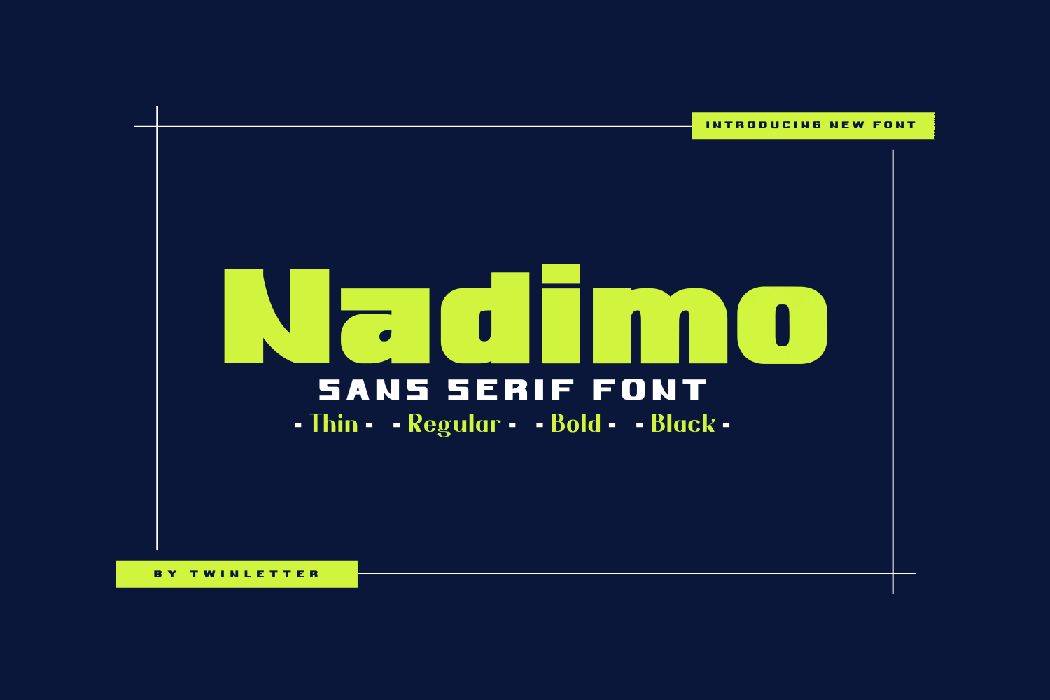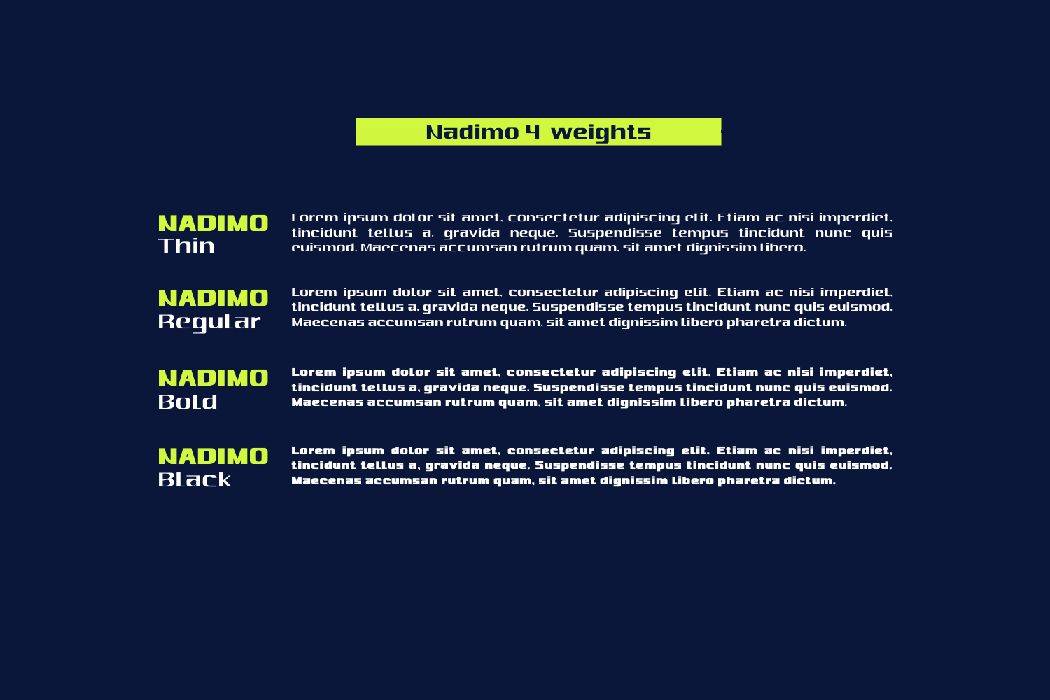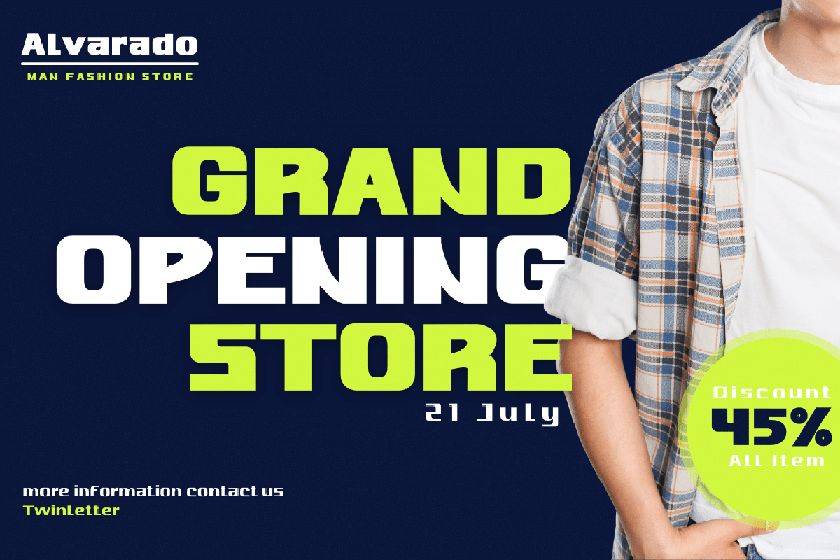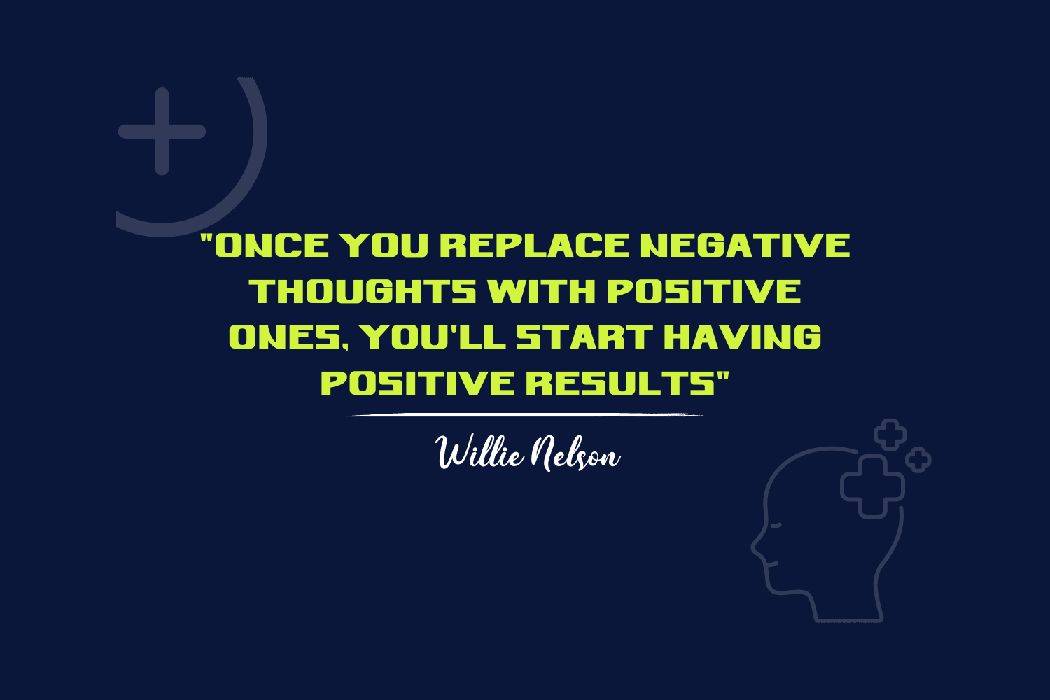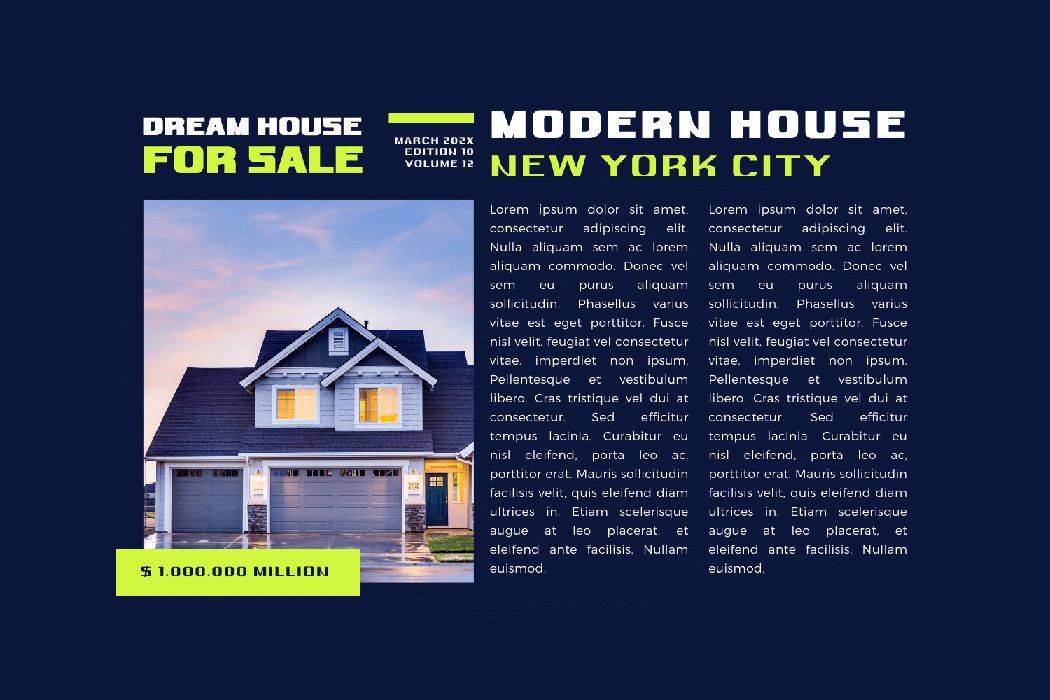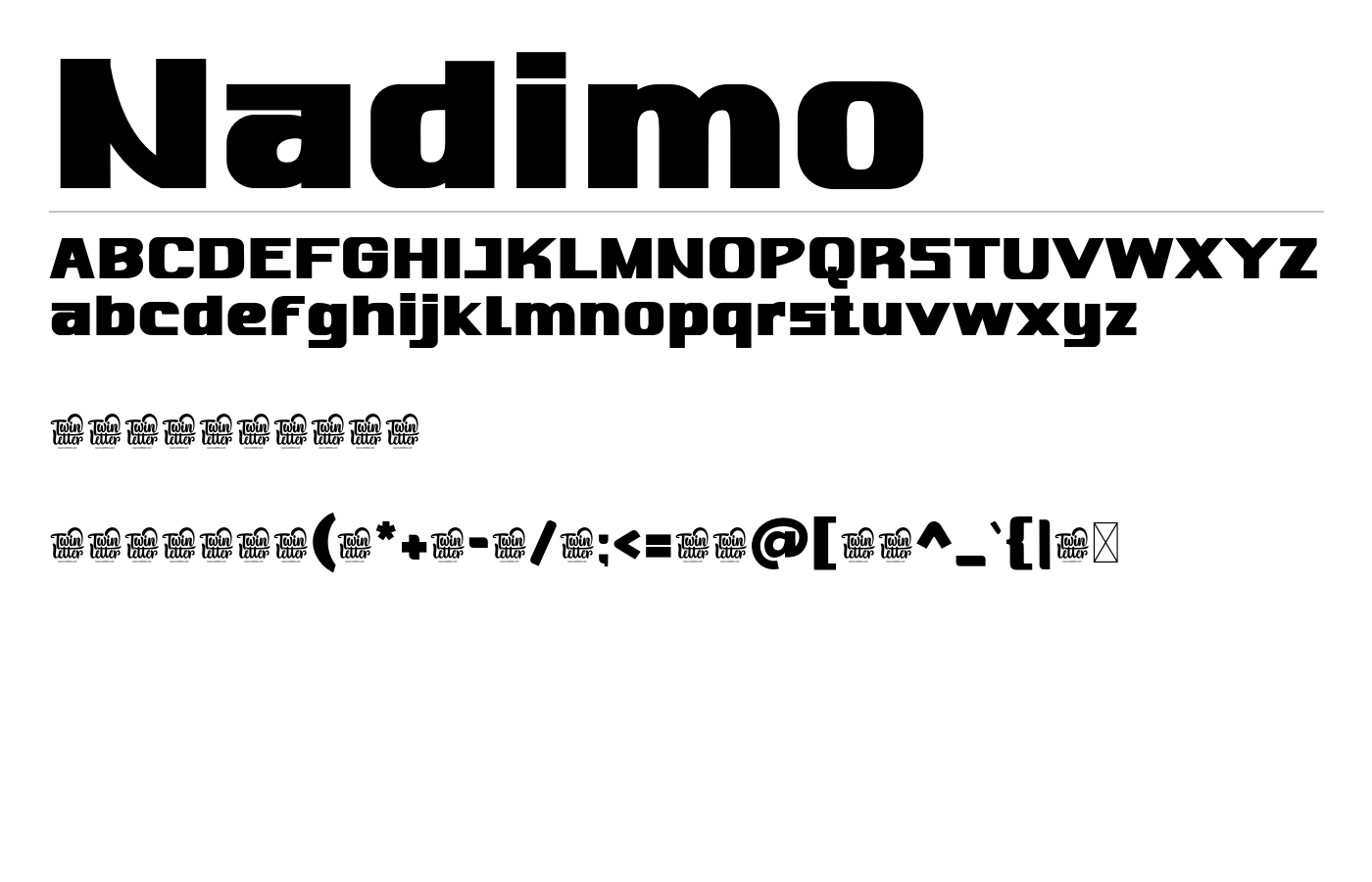
Nadimo is a bold, sturdy sans serif font with a strong presence and geometric influences, featuring a high x-height and consistent stroke weight that enhances readability. Its squared shapes and solid letterforms give it a modern, confident feel, making it ideal for impactful headlines, branding, and designs that require a robust and assertive style. This font works especially well where attention-grabbing and clarity are key, such as in logos, posters, and editorial titles.
Nadimo Font
About Nadimo Font
| Font family | Nadimo Font |